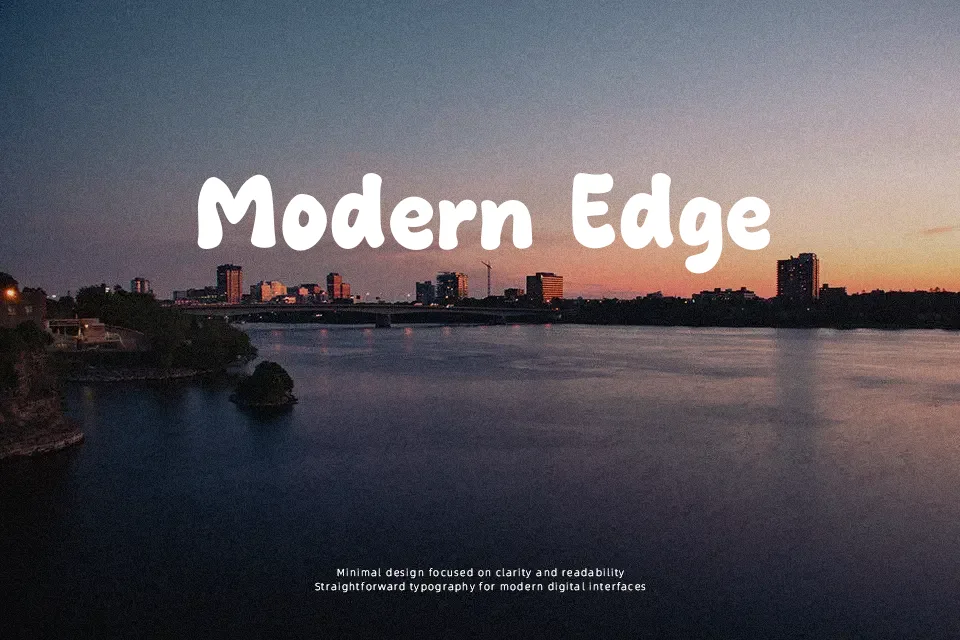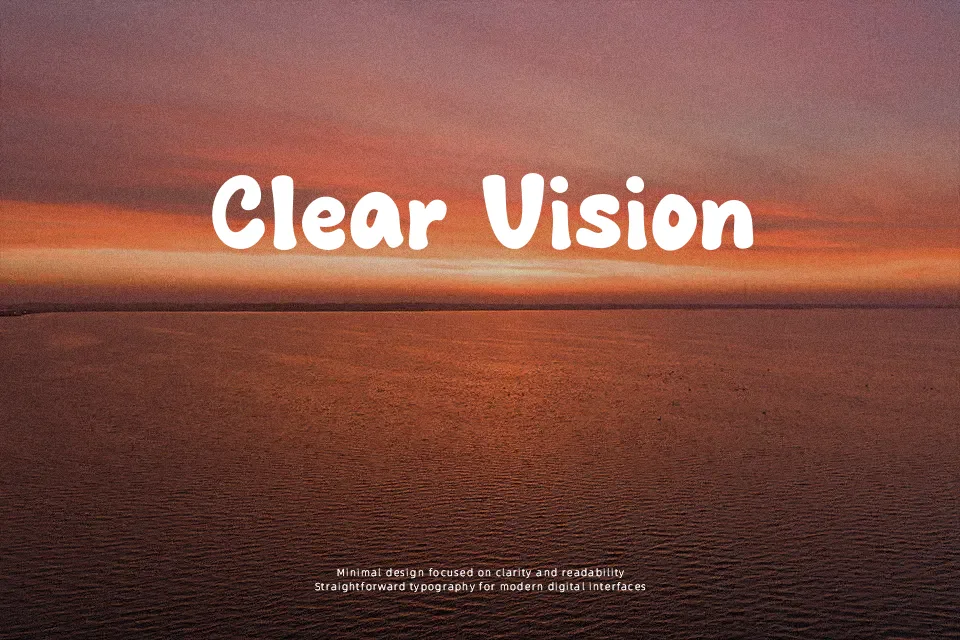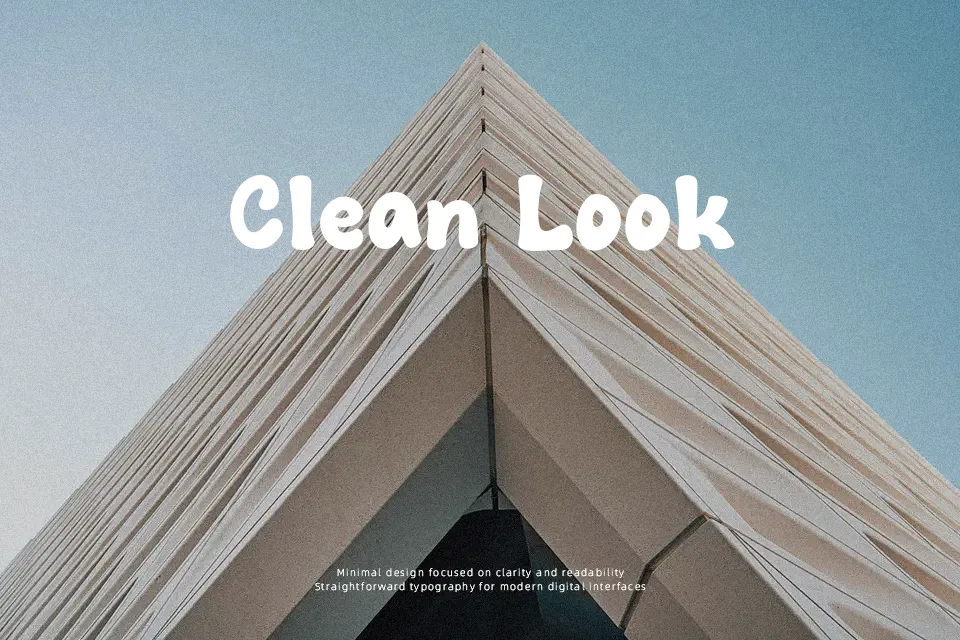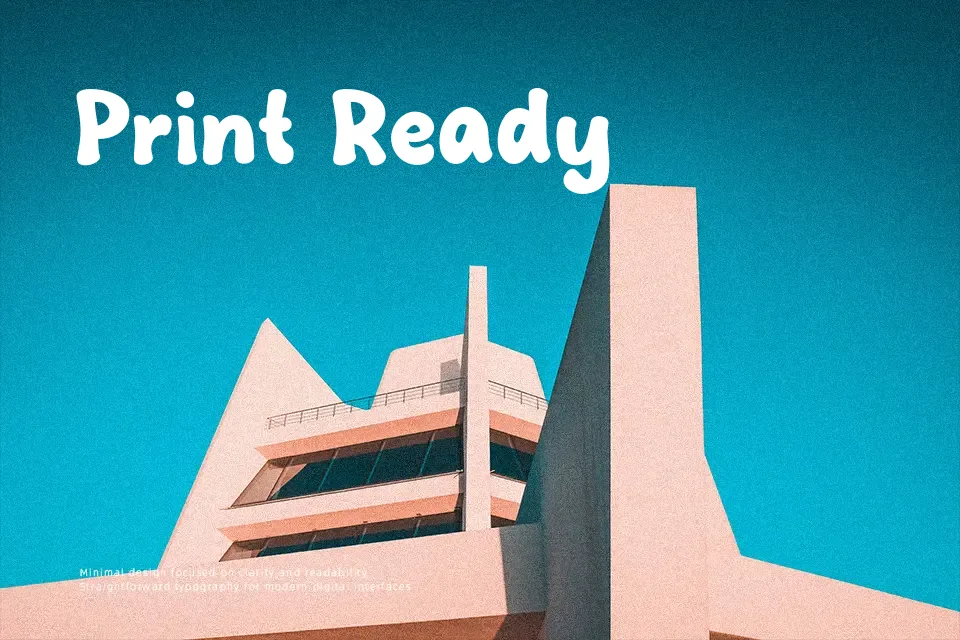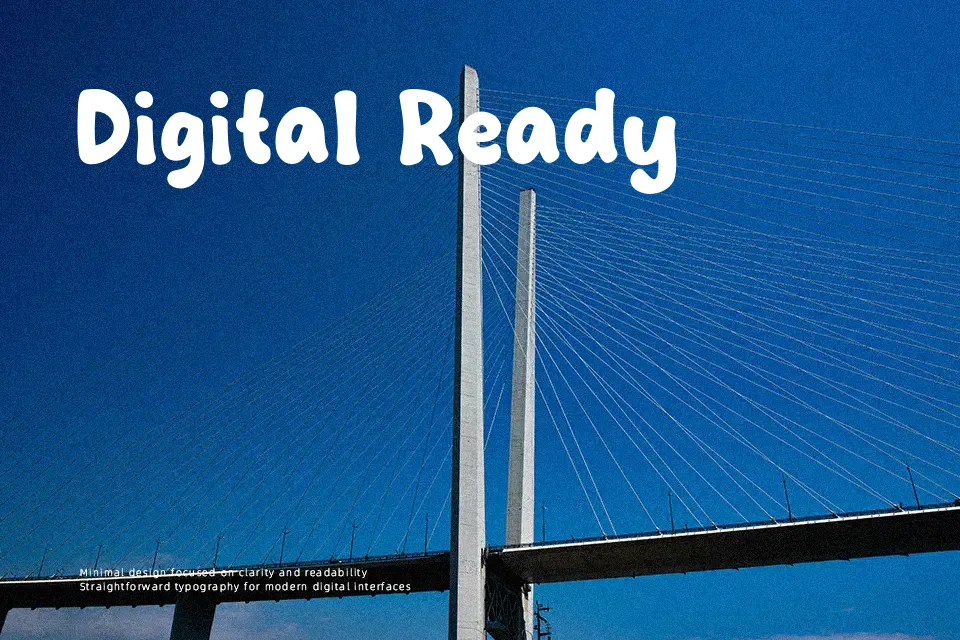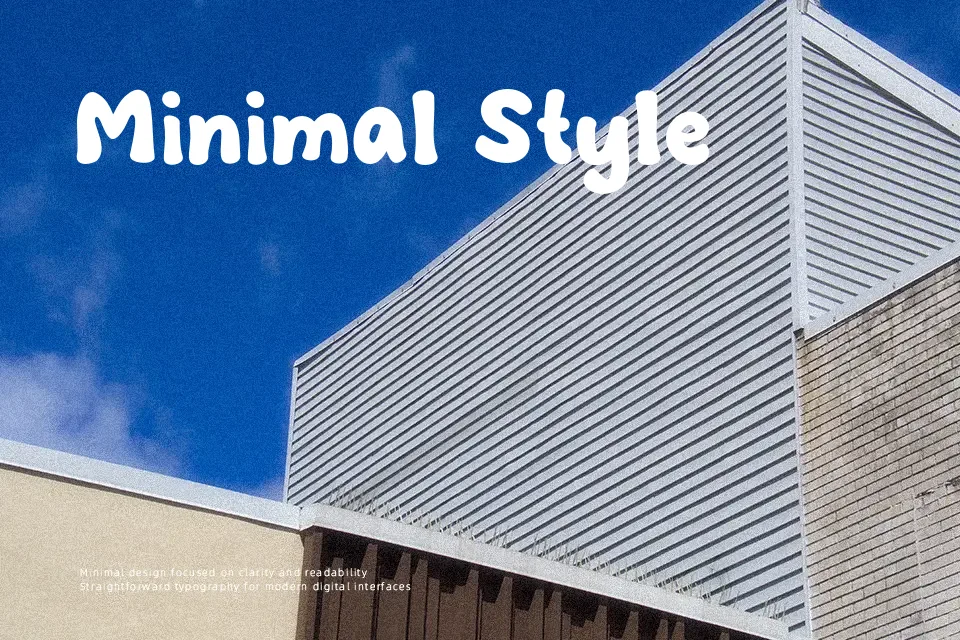
Sauce Barbe Font
Sauce Barbe Font features extra-bold, rounded letterforms defined by bulbous contours, soft terminals, and minimal stroke contrast across both uppercase and lowercase sets. The tight letter spacing and plump proportions give the typeface an energetic visual rhythm, making it highly effective for eye-catching merchandise, animated show titles, and sticker designs. The letterforms maintain strong clarity at larger display sizes, though the heavy weight and dense counters reduce legibility in continuous text. Consequently, this design works best for short headlines rather than body copy, as small editorial settings quickly become cluttered and difficult to read comfortably over multiple lines.
Best For: cartoon video titles, snack packaging, children’s book covers, merchandise stickers
Not Ideal For: long paragraph text, mobile app interfaces, corporate annual reports, dense editorial layouts
Perfect for branding, headline, and kids, with a bold and cartoon style.